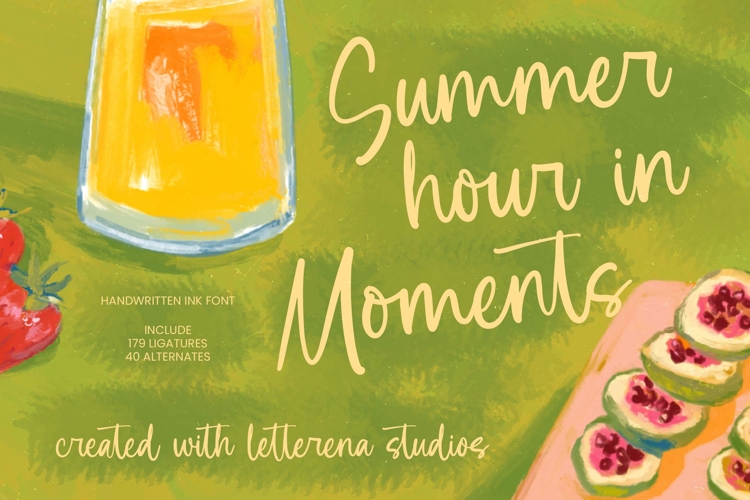
Summer Moments - Handwritten Ink Font
Elevate your creative projects with the organic charm and fluid aesthetics of Summer Moments - Handwritten Ink Font. This meticulously crafted typeface captures the essence of authentic ink strokes, providing a , handcrafted feel that breathes life into digital and print media. By blending casual elegance with a professional finish, it ensures your message remains both impactful and visually engaging for any contemporary audience.
Unleash limitless creativity using a comprehensive set of 179 ligatures and 40 alternates that prevent repetitive letterforms. These advanced typographic features allow Summer Moments - Handwritten Ink Font to mimic the natural flow of human handwriting with unparalleled precision. Whether you are aiming for a rustic vibe or a sophisticated script look, this font offers the flexibility needed to maintain a unique brand identity.
- Uppercase and Lowercase
- Numerals
- Punctuations (OpenType Standard)
- Accents (Multilingual Characters)
- Ligatures and Alternative Style Stylistic Set